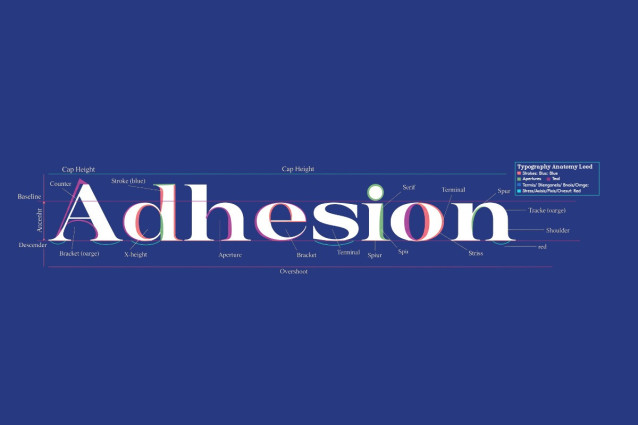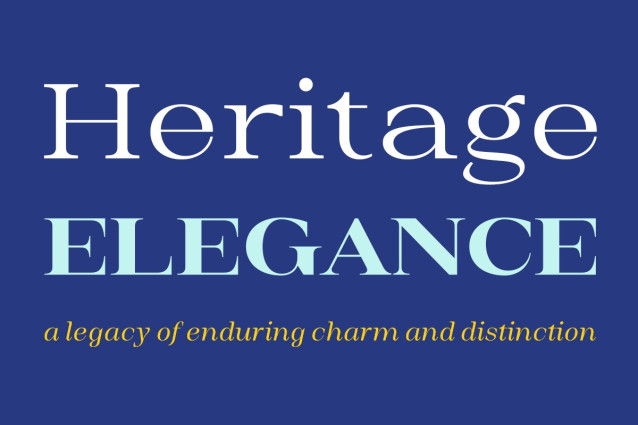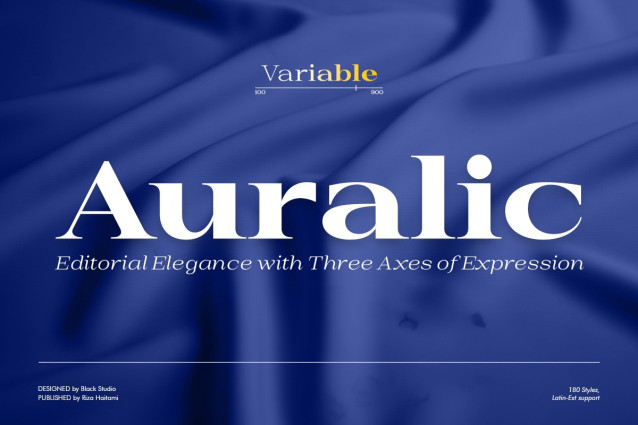
Auralic Font
Auralic Font a sophisticated variable serif typeface that embodies editorial elegance with a modern spirit. Designed with three distinct axes of expression, Auralic offers unparalleled versatility, allowing you to seamlessly navigate between 180 unique styles. Its high-contrast letterforms, sharp serifs, and graceful curves are crafted to bring a touch of luxury and clarity to any project.
Perfect for high-end branding, magazine layouts, book publishing, and refined web design, Auralic ensures your message is delivered with poise and confidence. With extensive Latin-Extended language support, this font is a powerful tool for designers aiming to create timeless and impactful work for a global audience.